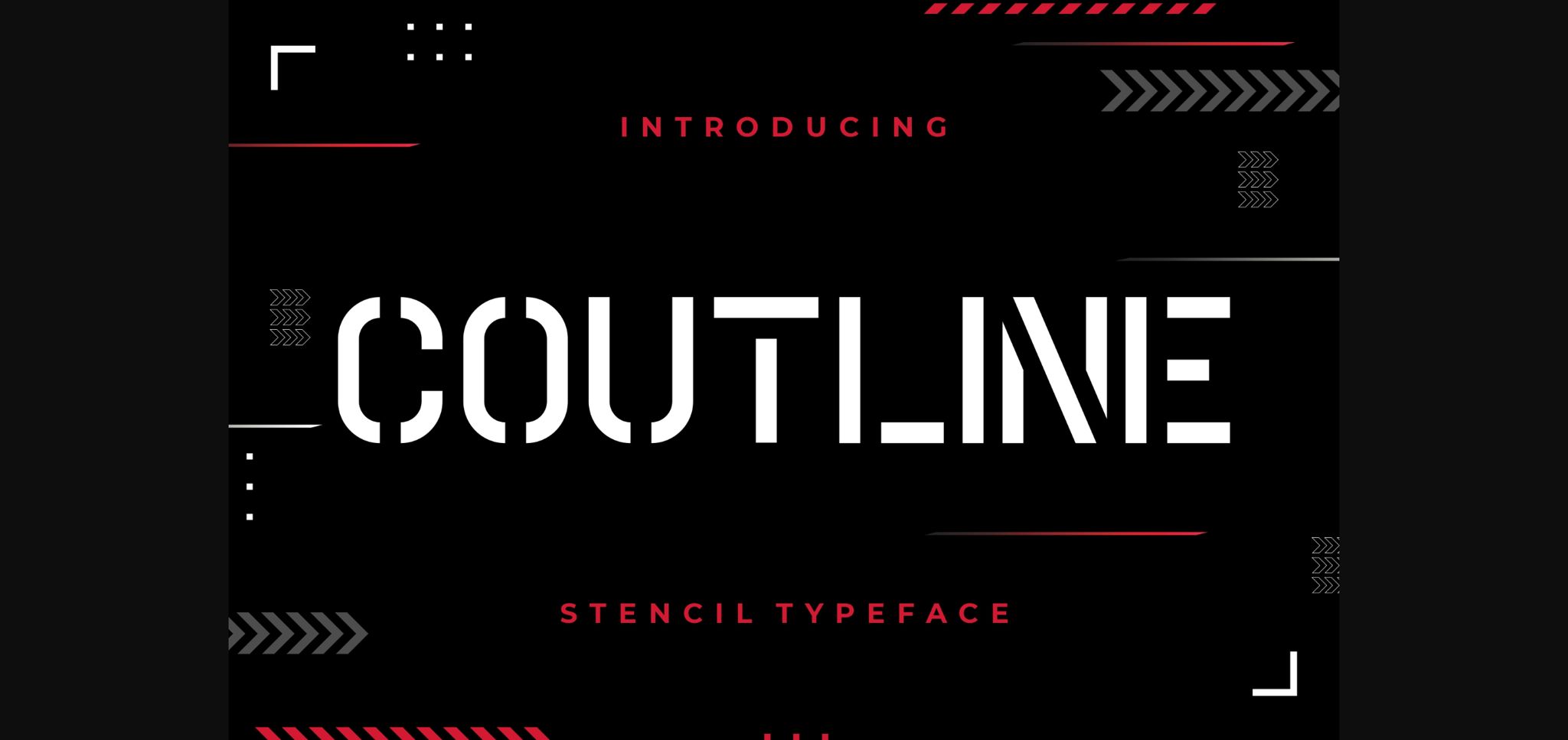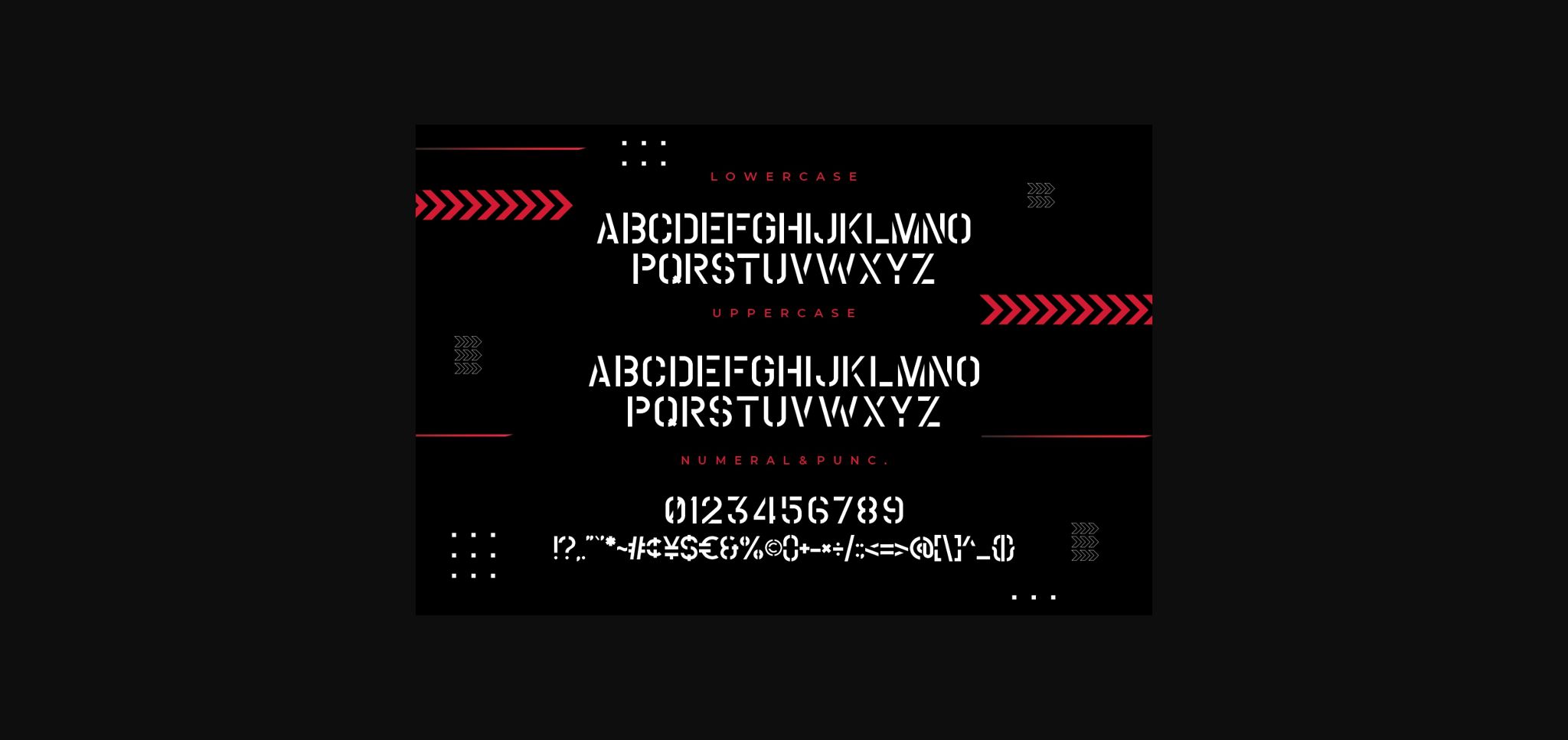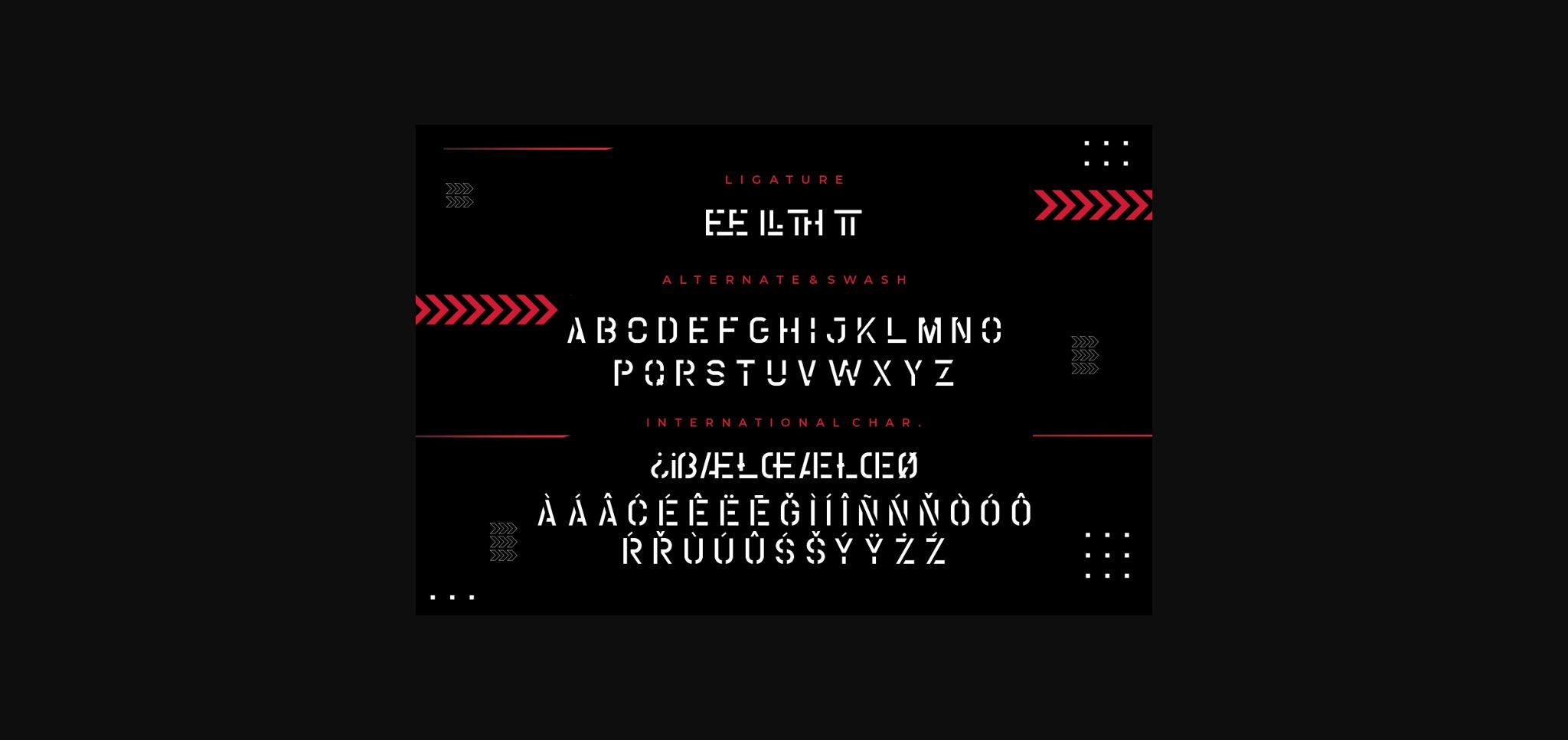
About Coutline Stencil Typeface Font
Coutline is an all caps sans serif font inspired by military design and urban graffiti.
Coutline is perfect for branding projects, logo, wedding designs, social media posts, advertisements, product packaging, product designs, label, photography, watermark, invitation, stationery and more.